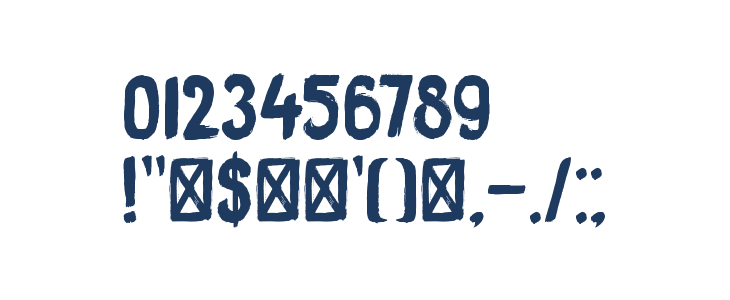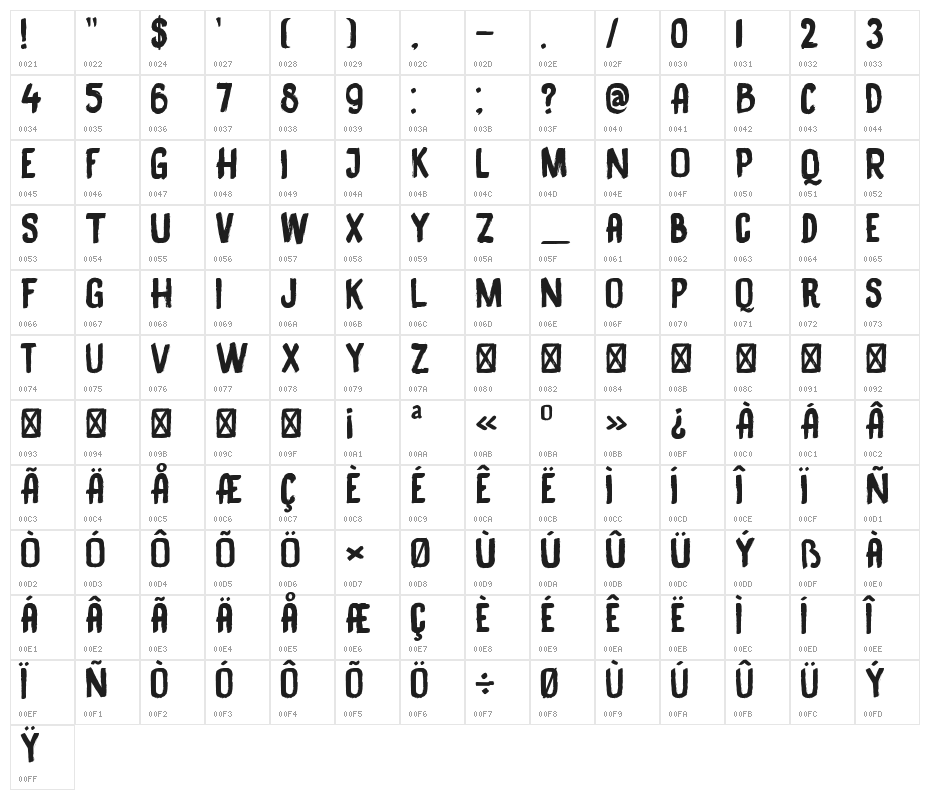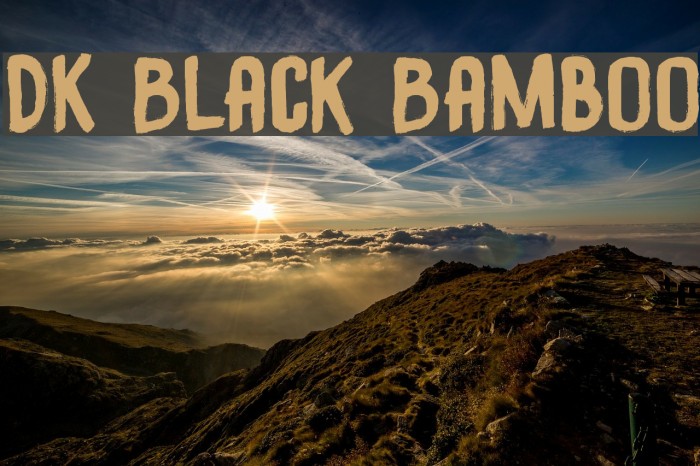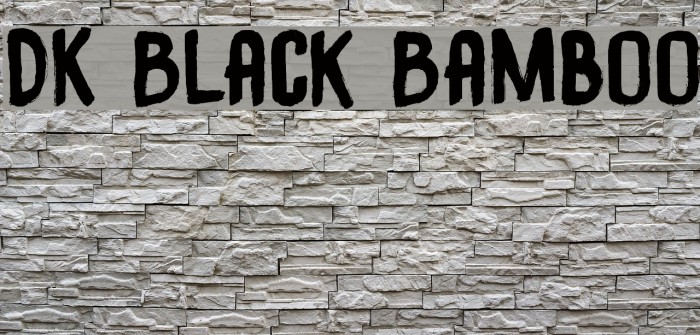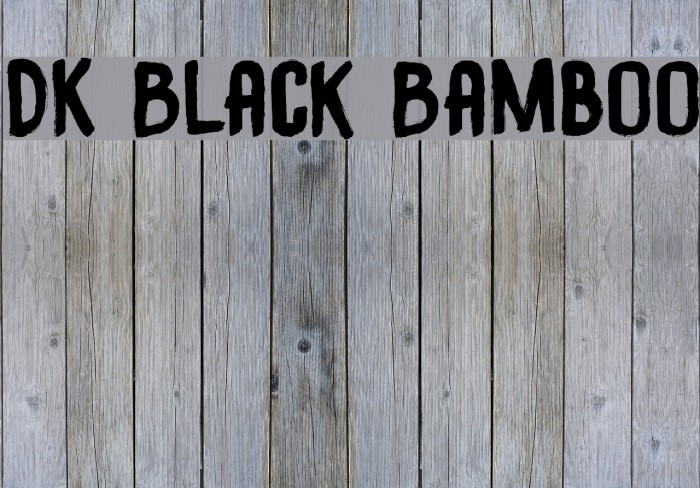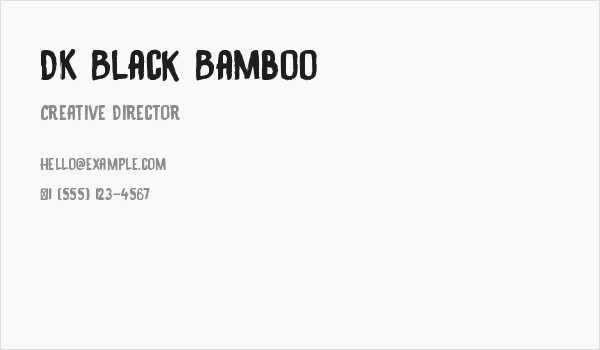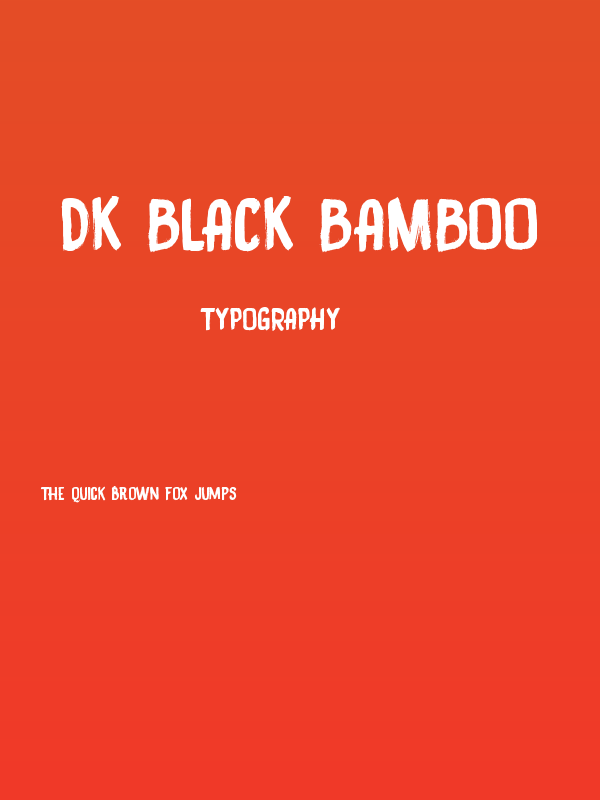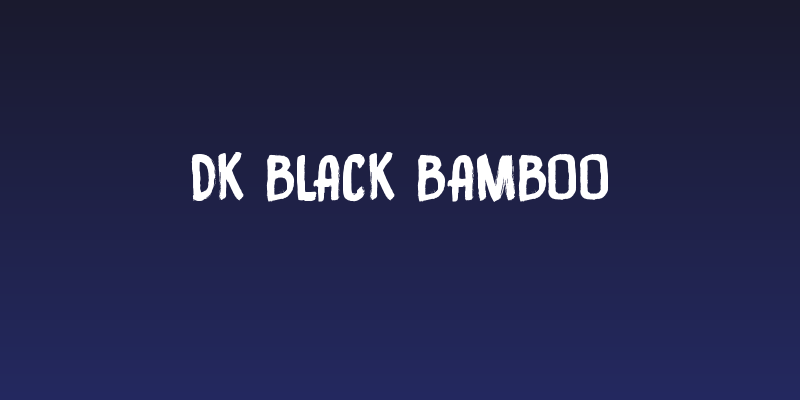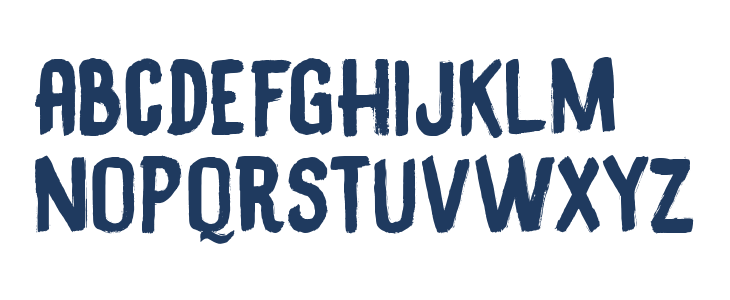
DK Black Bamboo Font
DK Black Bamboo Description
This font features a bold, brush-like style with a hand-painted appearance. The characters are thick and have a rough, textured edge, giving them a dynamic and energetic feel. The uppercase and lowercase letters maintain a consistent weight, while the numbers and special characters follow the same stylistic approach. The overall look is organic and expressive, reminiscent of traditional calligraphy with a modern twist. This font is ideal for projects that require a strong visual impact and a touch of artistic flair.
Overall StyleModern, Artistic
Proposed ProjectsIdeal for posters, branding, packaging, and any design needing a bold, artistic touch.